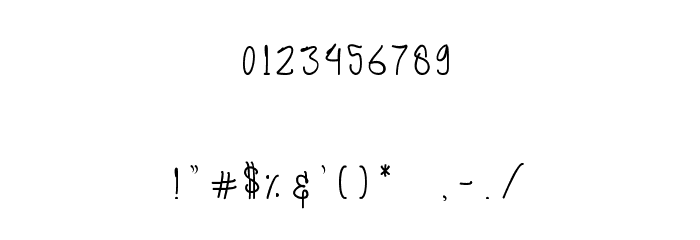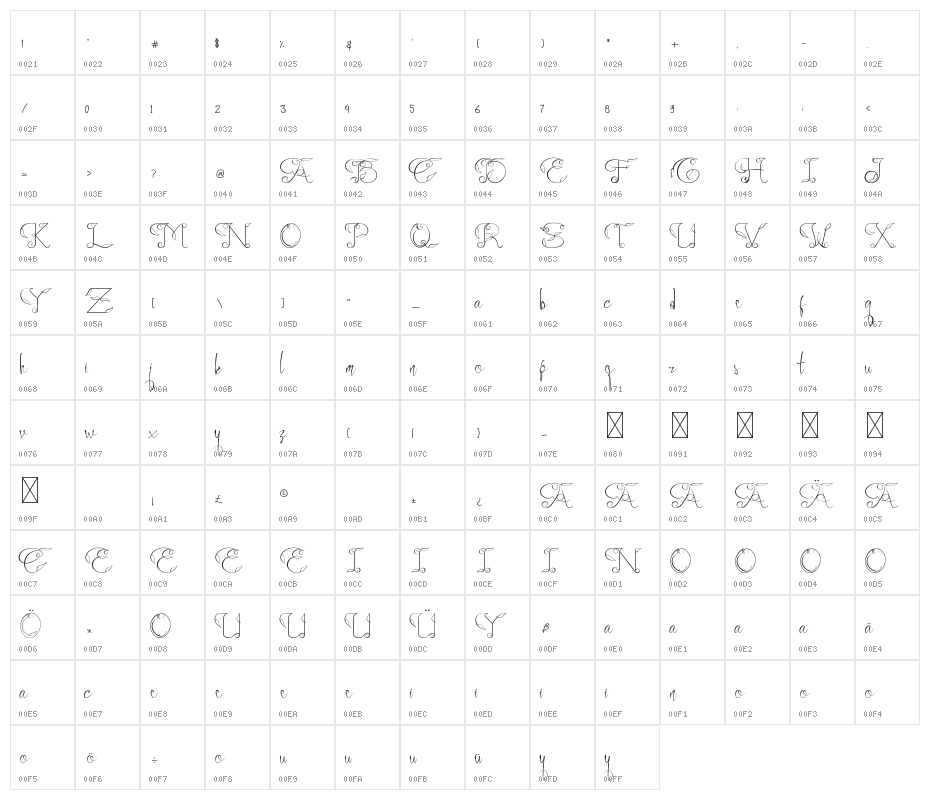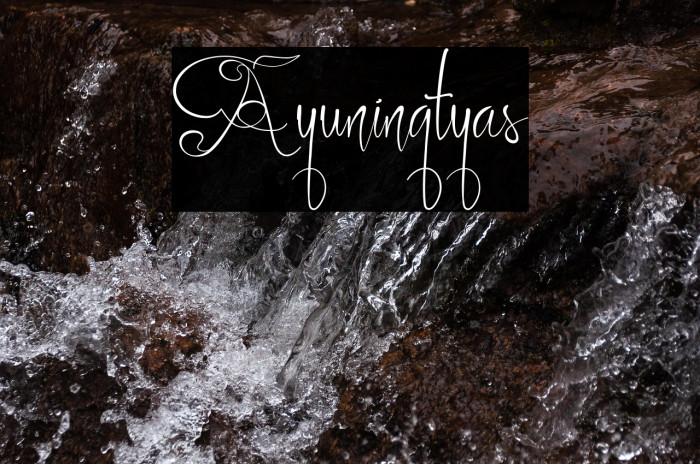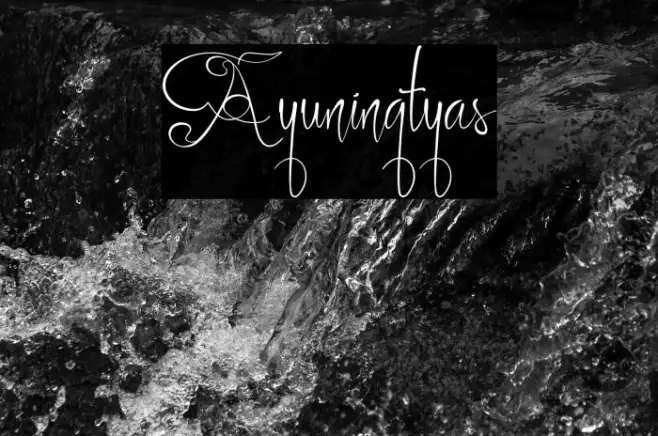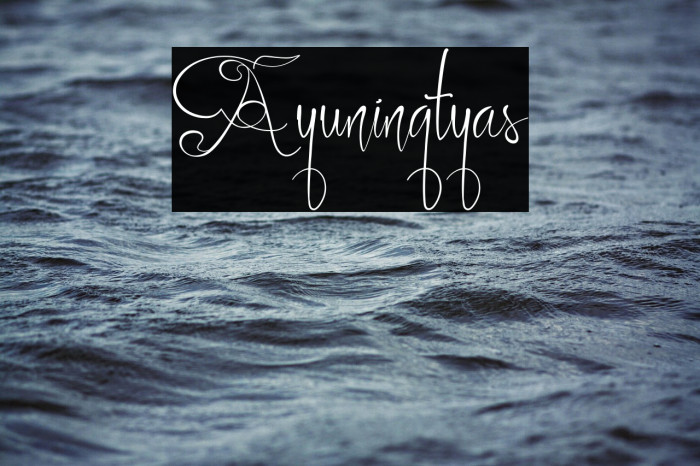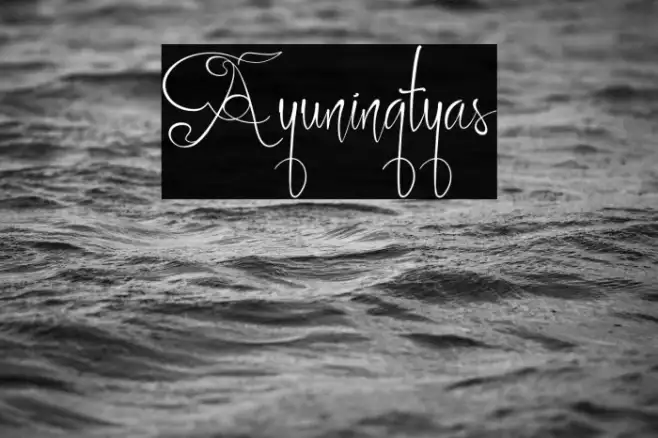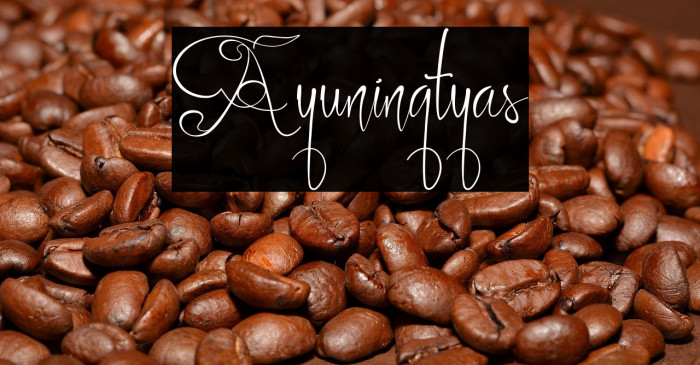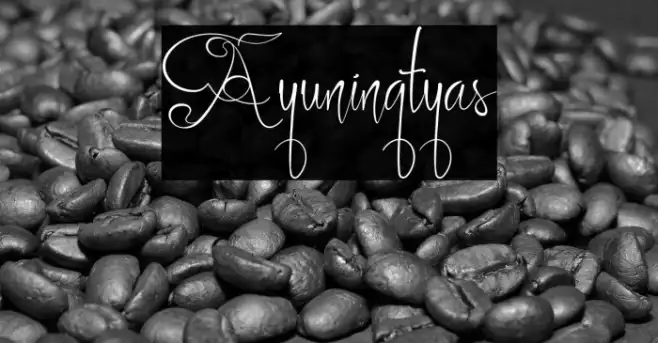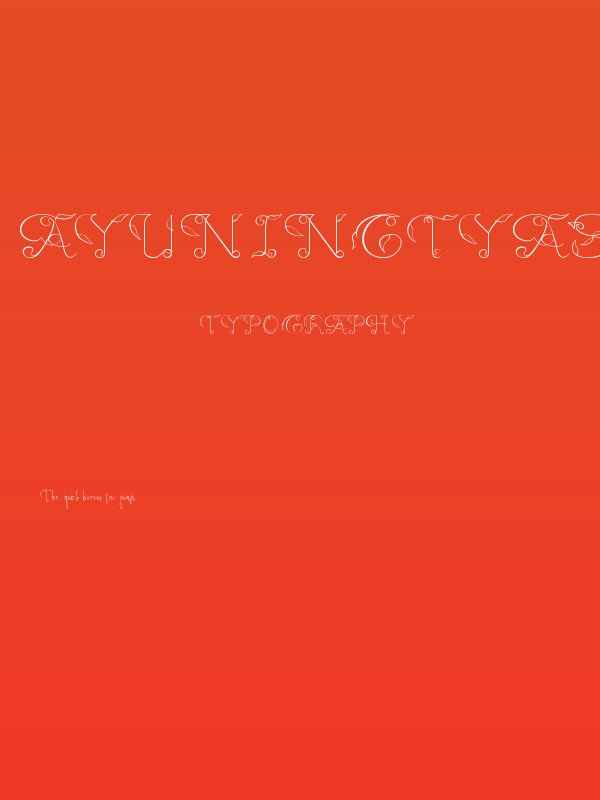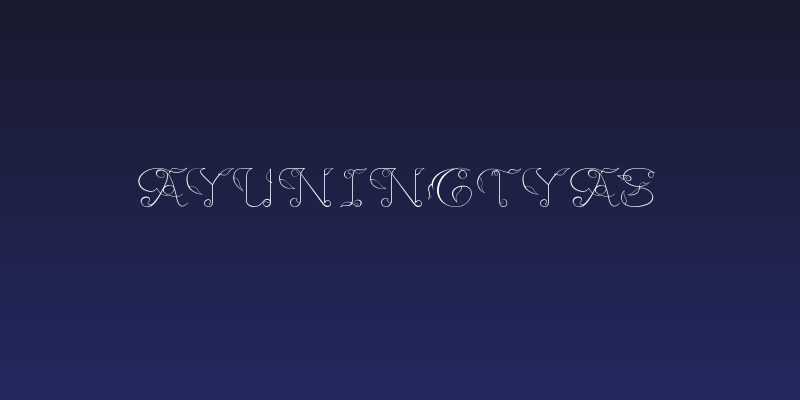
Ayuningtyas Font
Ayuningtyas Description
This font features an elegant and decorative style with intricate swirls and flourishes that give it a sophisticated and artistic appearance. The uppercase letters are particularly ornate, with each character displaying unique embellishments that add a touch of luxury and creativity. The lowercase letters maintain a more fluid and cursive style, providing a nice contrast to the elaborate uppercase. The numbers and special characters are designed to complement the overall aesthetic, ensuring consistency throughout. This font is perfect for projects that require a touch of elegance and artistic flair.
| Use Case | Logos, Invitations, Artistic Projects |
| Proposed Projects | Ideal for wedding invitations, luxury branding, artistic posters, and elegant stationery. |